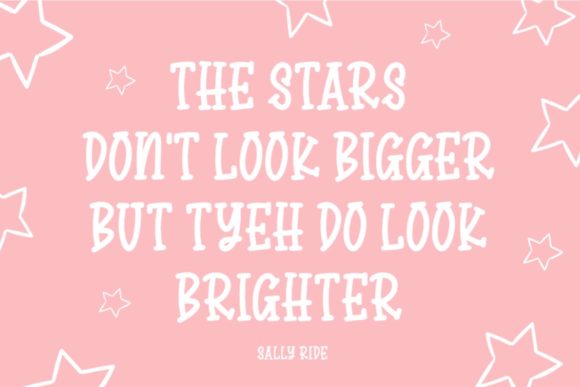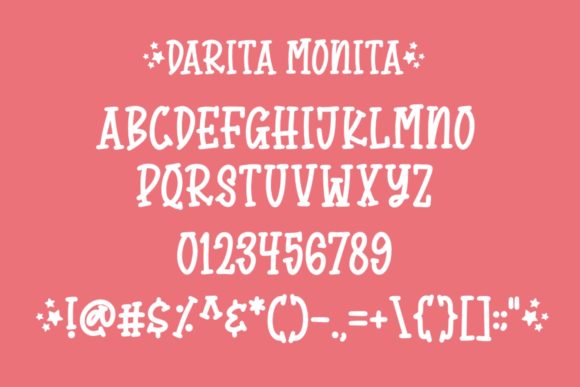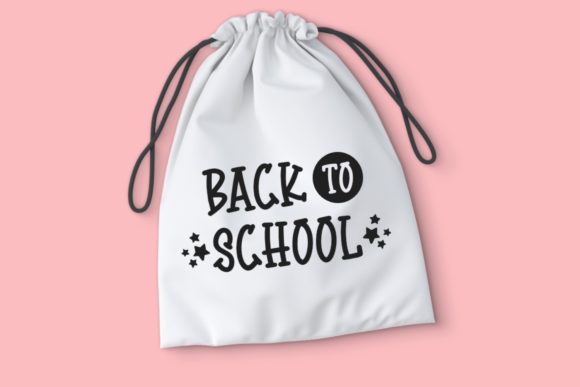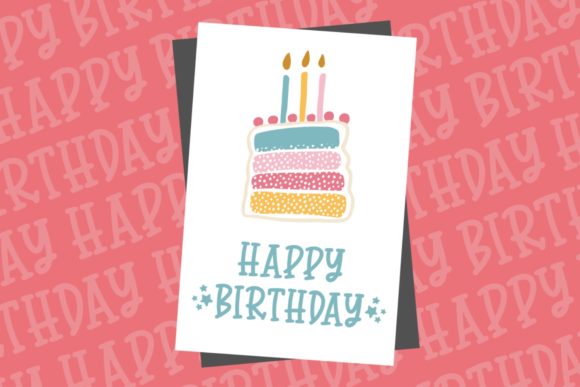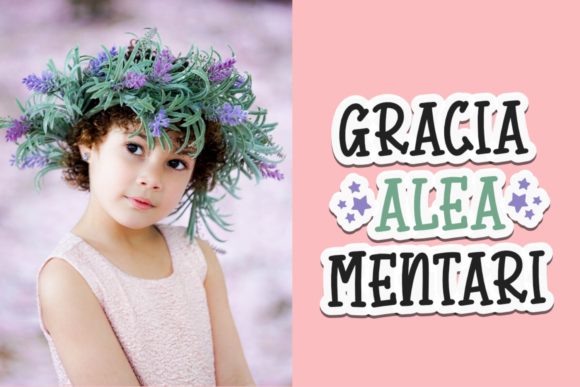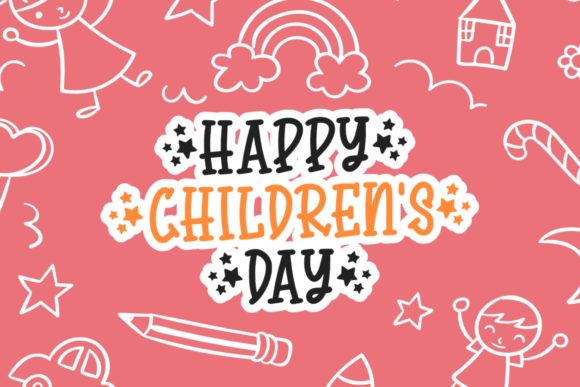
Discover the Charm of Darita Monita Font: A Cute and Friendly Serif Font
Are you a designer or crafter looking for a unique and playful font to add a special touch to your creations? Look no further than Darita Monita Font! This adorable handwritten serif font is designed to bring a lovely and friendly feel to your designs and crafts. In this article, we’ll dive into the world of Darita Monita Font, exploring its features, benefits, and uses.
What is Darita Monita Font?
Darita Monita Font is a carefully crafted handwritten serif font that exudes a sense of warmth and approachability. Its cute and playful design makes it perfect for a wide range of creative projects, from digital designs to handmade crafts. The font’s friendly feel is sure to capture the hearts of your audience, making it an excellent choice for projects that require a personal touch.
Key Features of Darita Monita Font
- Handwritten serif font: Darita Monita Font boasts a beautiful, handwritten design with serifs that add a touch of elegance to its playful feel.
- Cute and friendly: The font’s design is carefully crafted to evoke a sense of friendliness and approachability, making it perfect for projects that require a personal touch.
- Lovely and charming: Darita Monita Font is sure to add a special element to your designs and crafts, making them stand out from the crowd.
- Multipurpose: This versatile font can be used for a wide range of creative projects, from digital designs to handmade crafts.
Benefits of Using Darita Monita Font
So, why should you choose Darita Monita Font for your next project? Here are just a few benefits of using this charming font:
- Adds a personal touch: Darita Monita Font’s friendly feel and playful design make it perfect for adding a personal touch to your projects.
- Enhances creativity: The font’s unique design is sure to inspire your creativity, helping you to come up with fresh and innovative ideas.
- Perfect for various projects: Whether you’re working on a digital design or a handmade craft, Darita Monita Font is a versatile choice that can be used for a wide range of projects.
- Easy to read: Despite its playful design, Darita Monita Font is easy to read, making it perfect for projects that require a clear and legible font.
Uses of Darita Monita Font
Darita Monita Font is a versatile font that can be used for a wide range of creative projects, including:
- Digital designs: Use Darita Monita Font to add a personal touch to your digital designs, such as social media graphics, blog posts, and website headers.
- Handmade crafts: This font is perfect for handmade crafts, such as scrapbooking, card making, and journaling.
- Branding and marketing: Darita Monita Font can be used to create eye-catching branding and marketing materials, such as logos, brochures, and flyers.
- Stationery and invitations: Add a touch of elegance and playfulness to your stationery and invitations with Darita Monita Font.
In conclusion, Darita Monita Font is a charming and versatile font that is sure to add a special element to your designs and crafts. Its cute and friendly feel, combined with its elegant serif design, make it perfect for a wide range of creative projects. Whether you’re a designer or crafter, Darita Monita Font is an excellent choice for anyone looking to add a personal touch to their creations.